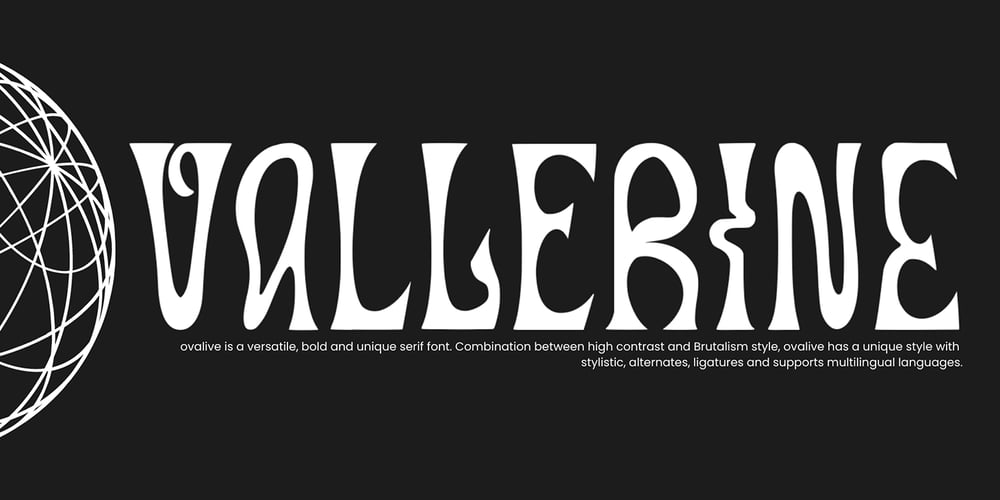
Vallerine Font Family was designed by Asep Rendy and published by Heyfonts. Vallerine contains 1 styles and family package options. Vallerine – Display Font is a versatile, bold and unique serif font. Combination between high contrast and Brutalism style, Vallerine has a unique style with stylistic, alternates, ligatures and supports multilingual languages.